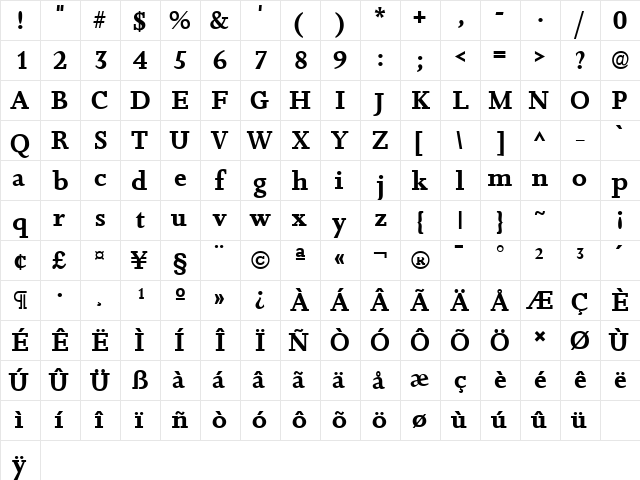
KelterSSK Bold Font Preview
KelterSSK Bold
KelterSSK Bold Font Details
Design Context for KelterSSK Typeface
KelterSSK takes a measured approach to typography — its balanced proportions and neutral character make it a reliable workhorse for both digital and print work. Its bold stroke weight gives it real presence on the page.